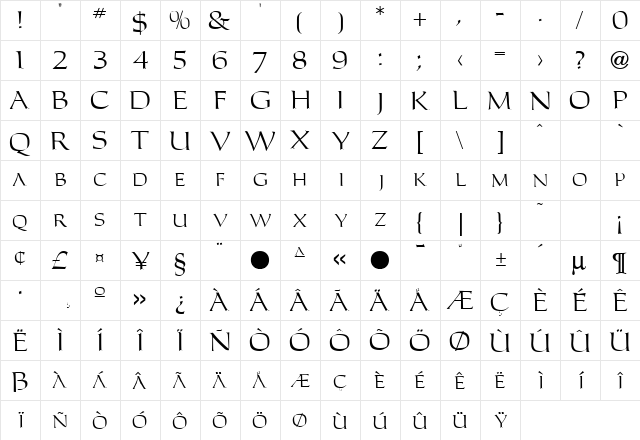
Capitalis Quadrat Normal
Design Context for Capitalis Quadrat Typeface
Capitalis Quadrat is a composed and adaptable typeface that performs quietly and consistently across a wide range of design contexts.